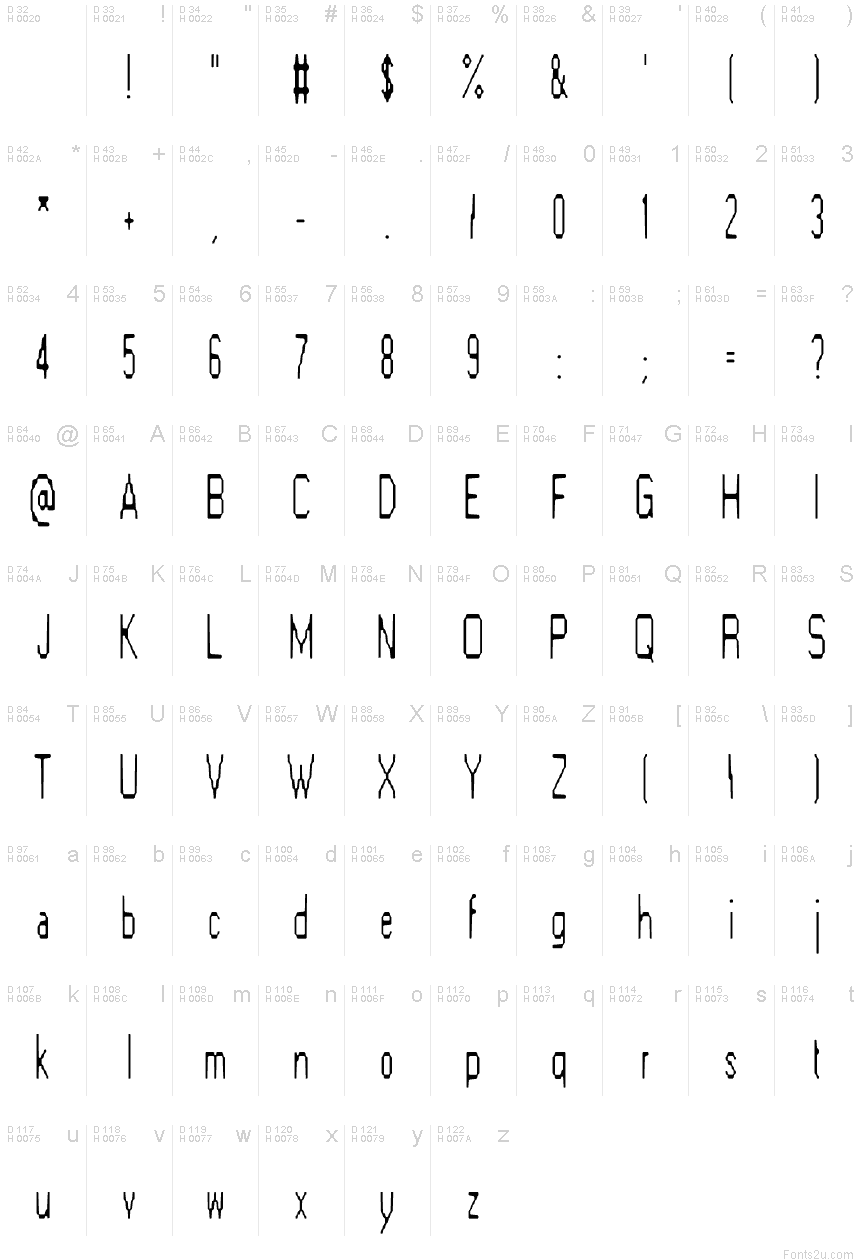
Electric Goat
Electric Goat font is a free digital typeface with a wiry, circuit-trace look—thin strokes, squared corners, and little intentional “breaks” that feel like a glitch caught mid-scan. It reads crisp and techy, but the slightly uneven rhythm keeps it playful rather than sterile, like a DIY label printed from an old terminal.
Using Electric Goat, try it on game UIs, sci‑fi posters, tech event flyers, Twitch overlays, album art, app splash screens, or sticker designs where a bit of static energy helps. Set it a touch larger with extra letter spacing, and pair it with a clean neo‑grotesk sans for body text so this free font stays sharp and punchy.